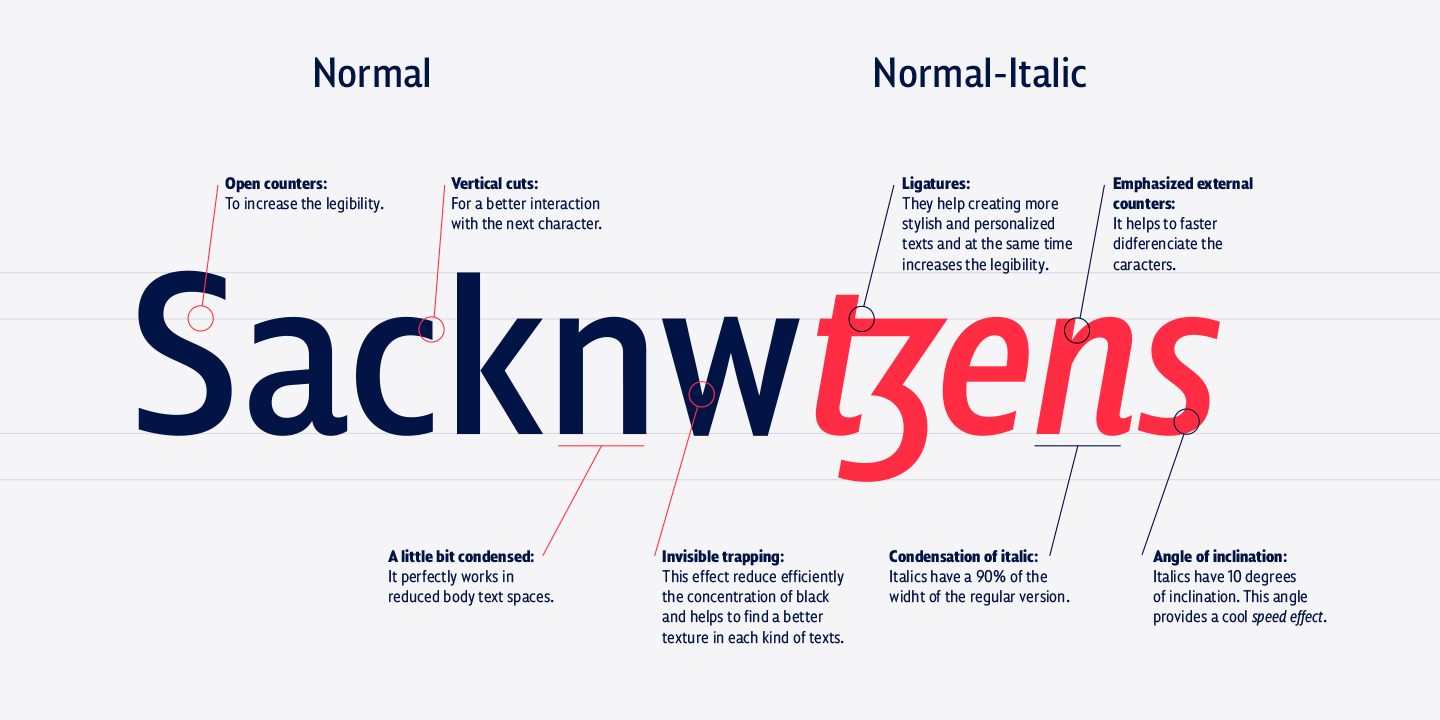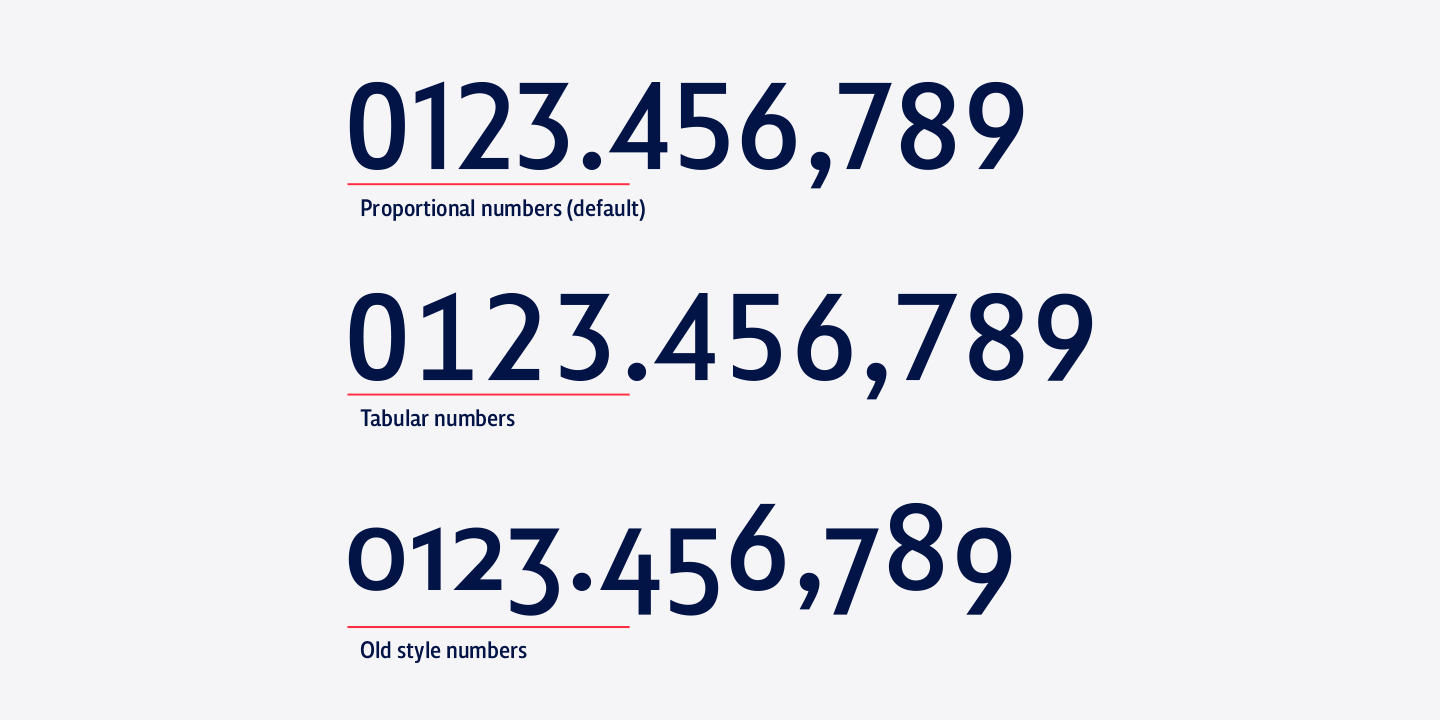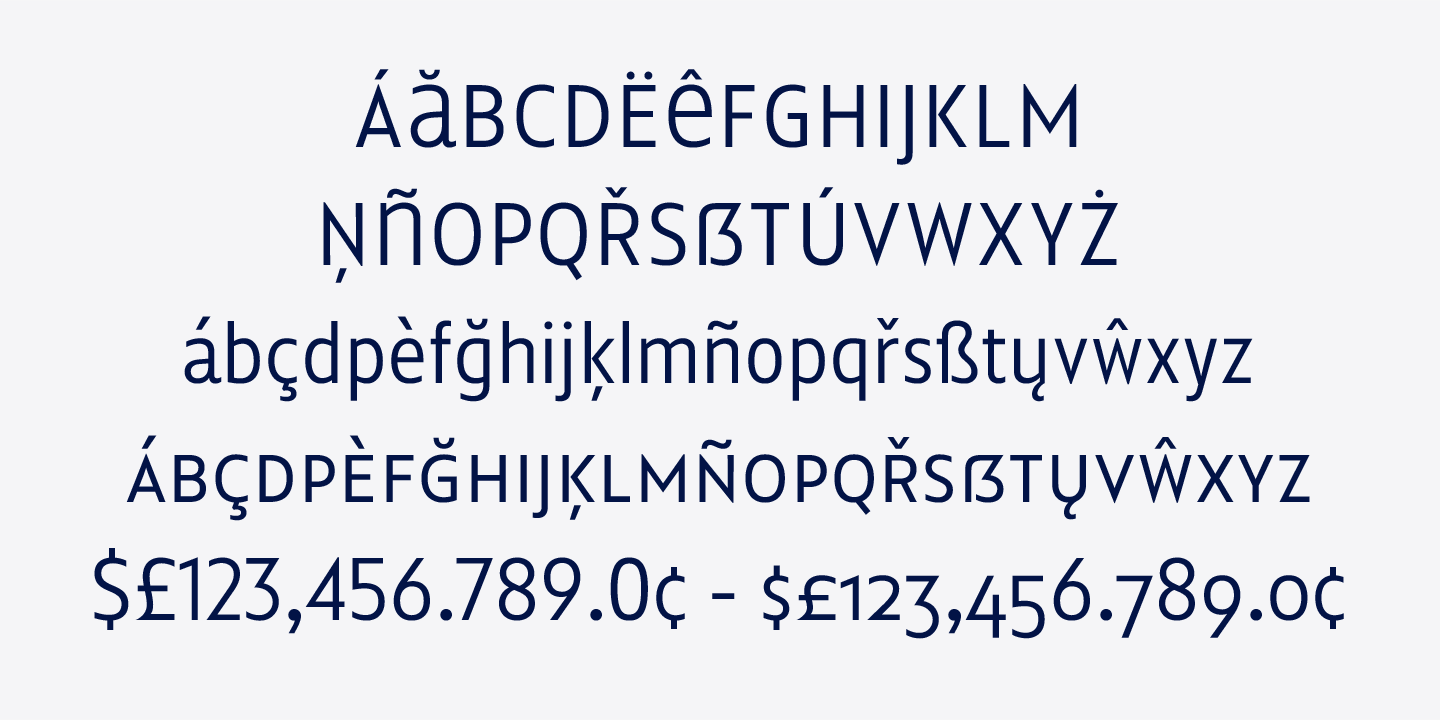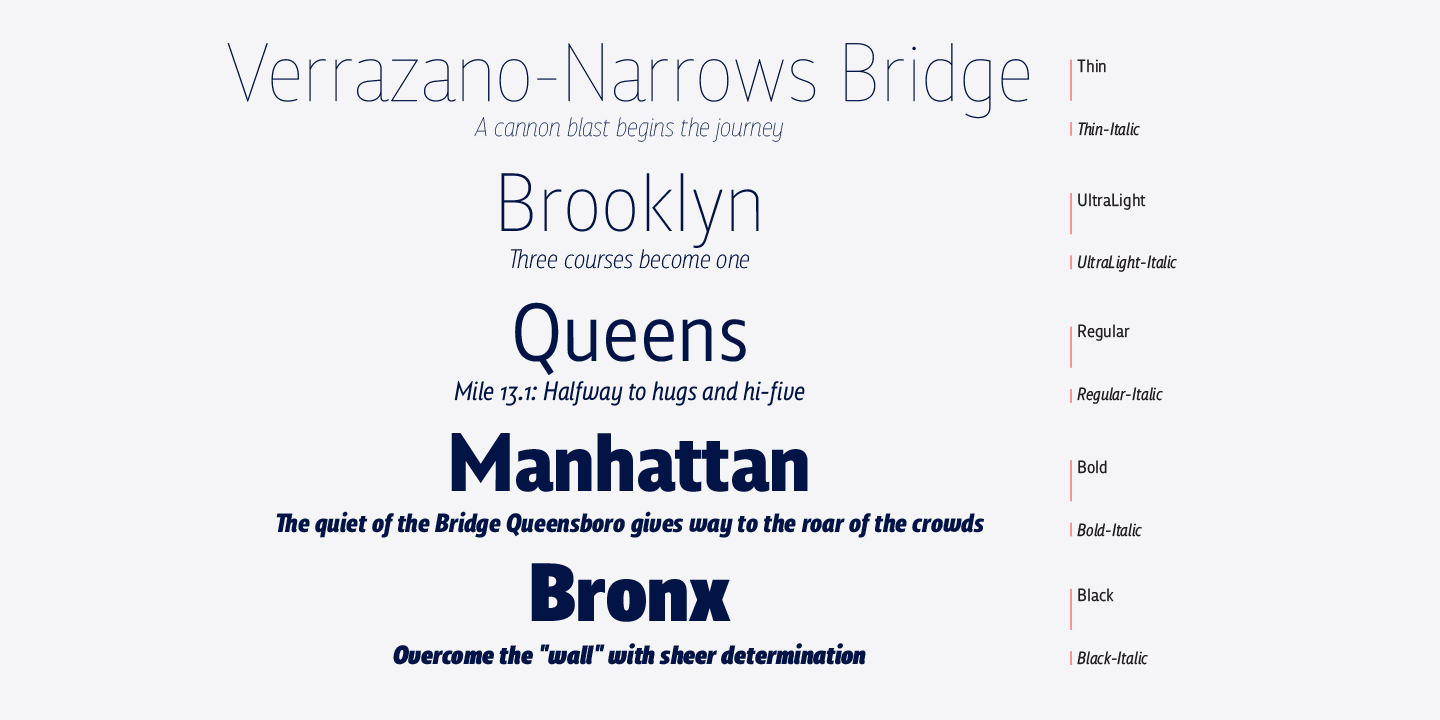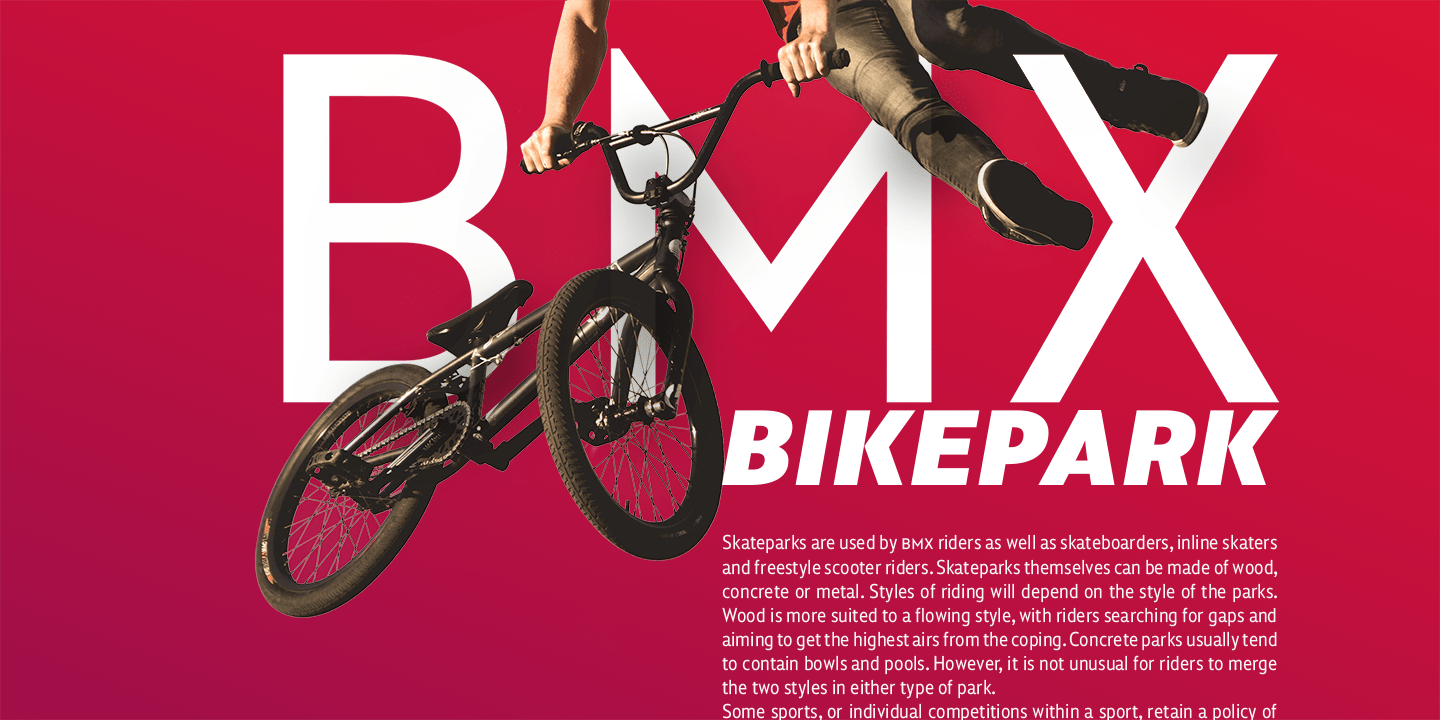
Squalo
About Squalo
Squalo, the genesis The idea of this new project called Squalo bumped into my mind when when I was working up with excitement to my sketches, chasing for a strong typographical character, that for me has to be crystallized in a form which is always legible…